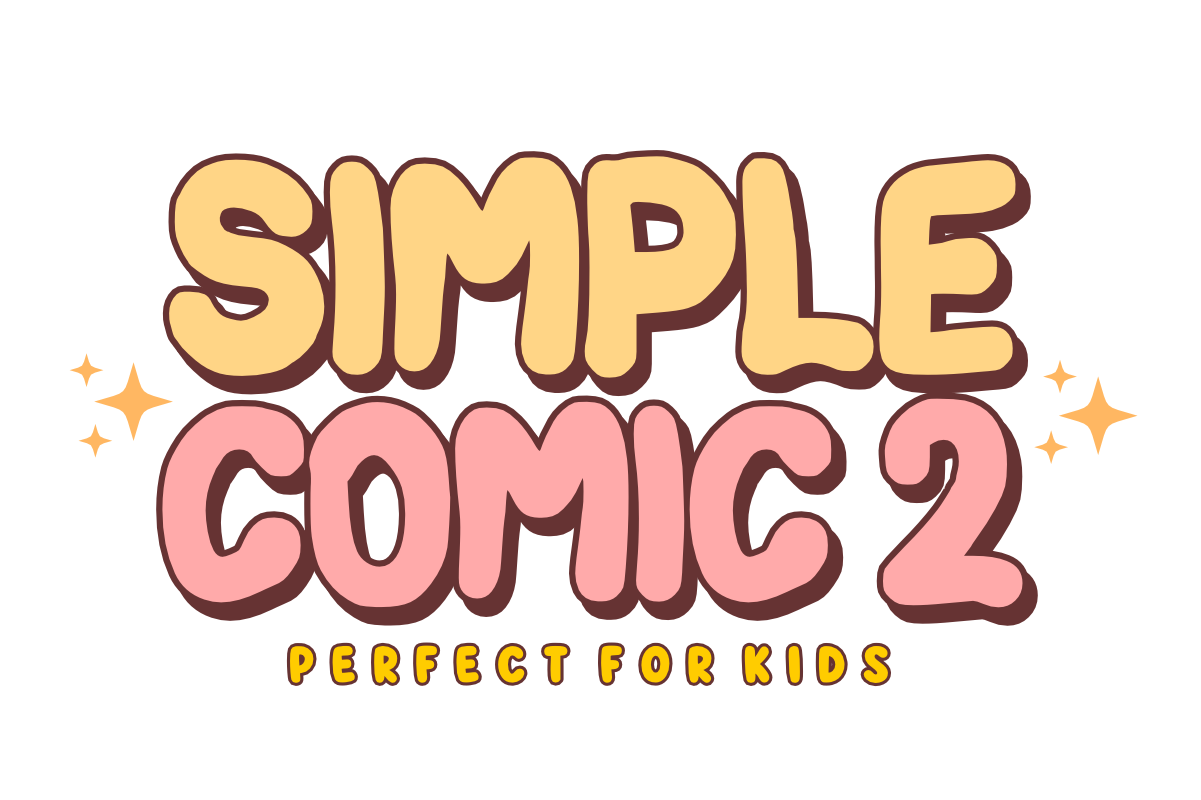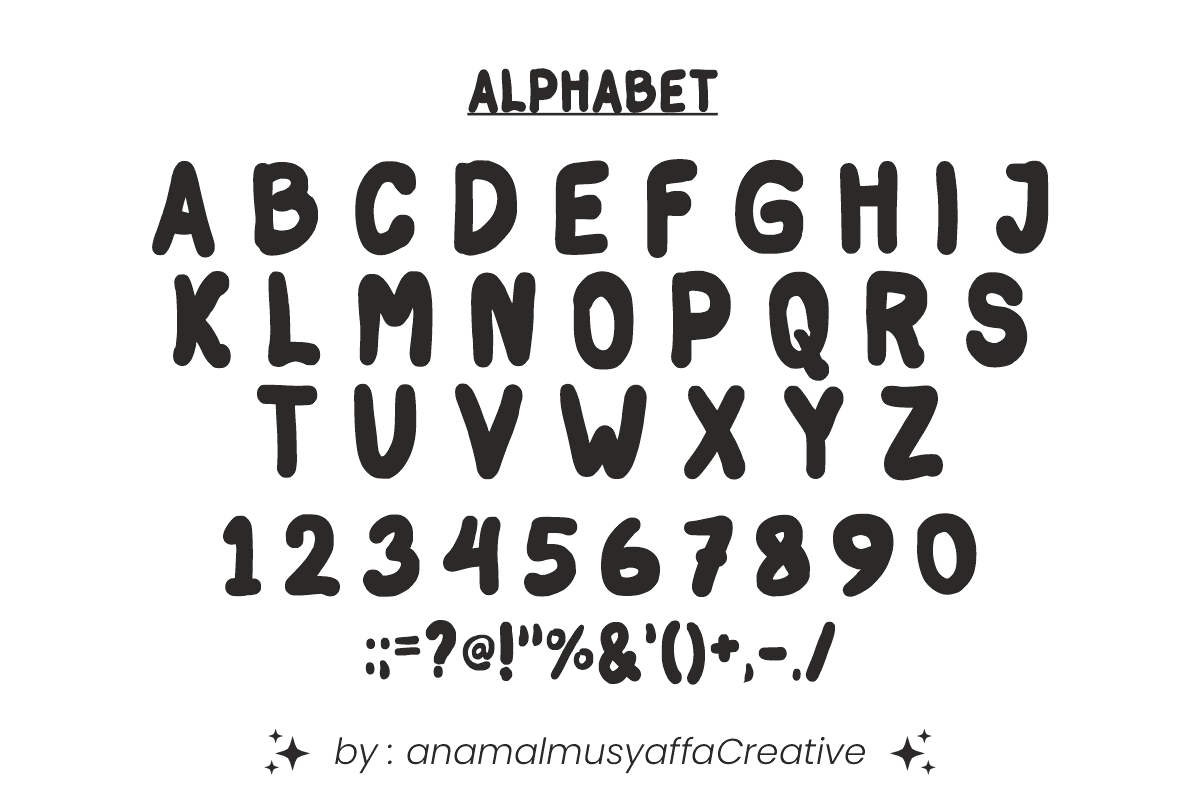
Simple Comic 2 - Kids Bubble Font
Simple Comic 2 - Playful Kids Bubble Font
Bring instant cheer and high-energy fun to your creative projects with Simple Comic 2! this ultra-bold display font combines chunky, cloud-like letterforms with a bouncy, friendly rhythm. It is explicitly designed as the ultimate "Perfect for Kids" font, making it an absolute must-have for eye-catching headlines.
Whether you're creating playful school materials, custom stickers, or bright birthday layouts, Simple Comic 2 perfectly balances a whimsical cartoon aesthetic with incredible legibility. It is highly versatile, expressive, and fully optimized for smooth performance across digital cutting tools (like Cricut) and professional print formats.
All-Caps Character Set (Chunky, playful uppercase letters)
Numbers & Basic Punctuation (Essential, simple symbols included)
Children’s Books, Cute Comics, & Storybook Cover Titles 📚
Cricut, Silhouette, & DIY Craft Sublimation Projects ✂️
Kids' Product Packaging, Toy Branding, & Nursery Decor 🧸
School Worksheets, Teacher Resources, & Classroom Posters 🎒
Custom Die-Cut Stickers, T-Shirt Prints, & Fun Merchandise 👕
Social Media Graphics, Playful Logos, & YouTube Thumbnails 📱